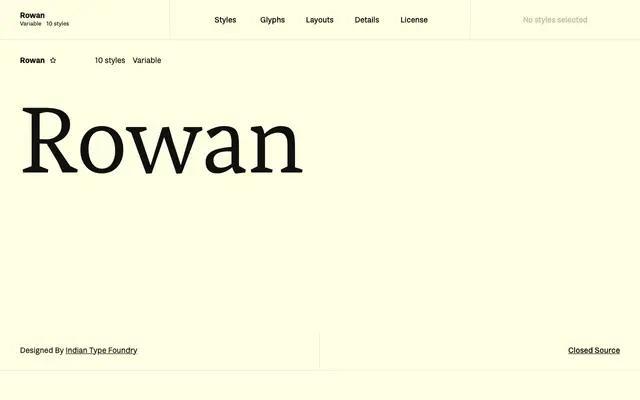
Rowan
A text serif by Inga Plönnigs, optimised for long-form reading with chunky serifs and stroke endings that hold up at small sizes.
Designed by Inga Plönnigs, a Type & Media graduate from KABK in The Hague, Rowan covers five weights from Light to Bold, each with a matching italic, and is also available as a variable font. Its distinctive chunky serifs and stroke endings maintain legibility at small sizes, while oldstyle figures are set as the default with lining figures available via OpenType. A stylistic set offers ascending lowercase letters without top-serifs, compensated by swelling flairs at the stem tops to preserve typographic colour.
A text-optimised serif with chunky serifs and stroke endings designed for long-form reading at both normal and small sizes, placing it firmly in the text serif tradition with humanist influences.